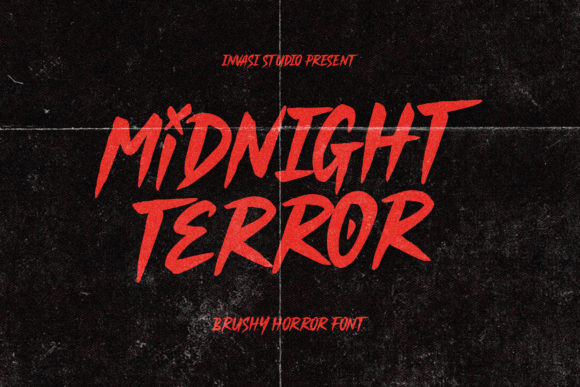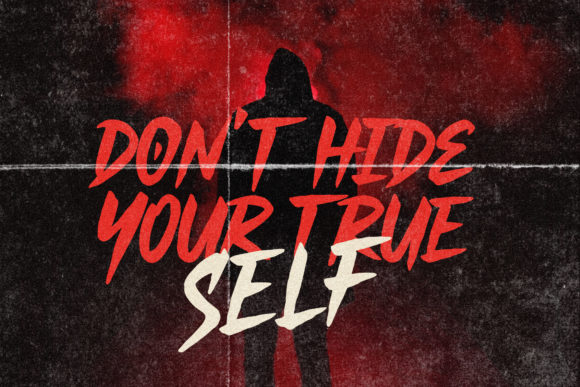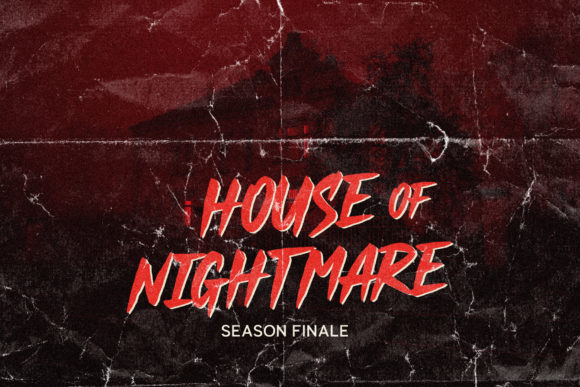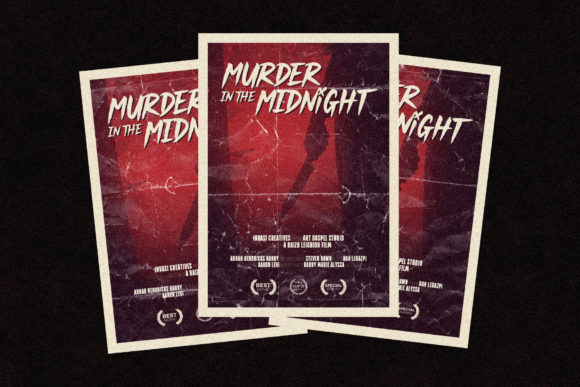
Midnight Terror Font
About the Midnight Terror Font
Elevate your designs with Midnight Terror Font, a font that combines sophistication with readability. Midnight Terror is a scary display font with powerful and solid stroke brush styles. It was inspired by horror and thriller movie posters from the ancient age, and that is the exact feeling it will give to your creative projects!
Midnight Terror excels as a display font for headlines, posters, and branding projects needing a strong, dramatic presence. Its bold strokes command attention, making it ideal for horror, thriller, or dark fantasy themes. However, its weight and highly stylized forms make it unsuitable for body text or UI elements; readability suffers at smaller sizes.
Pairing Midnight Terror effectively requires a contrasting typeface to balance its aggressive character. A clean sans-serif like Montserrat or a classic serif like Garamond would provide a strong counterpoint, grounding the design. For a more stylized approach, a geometric sans-serif could create a modern, edgy feel.
The font’s core personality is bold and menacing. Its aggressive forms and thick strokes convey a sense of power and unease, perfectly suited for projects aiming for a dark, mysterious, or suspenseful aesthetic.
Midnight Terror Font Usage Examples
Midnight Terror Font Example